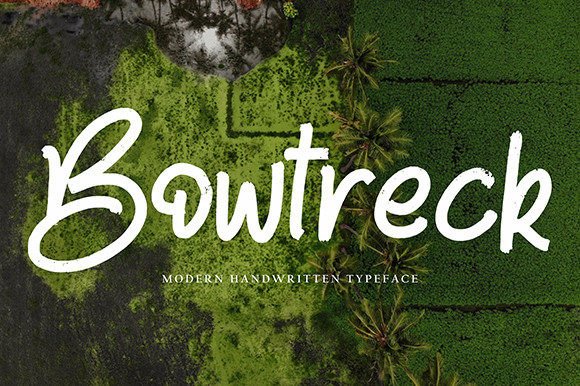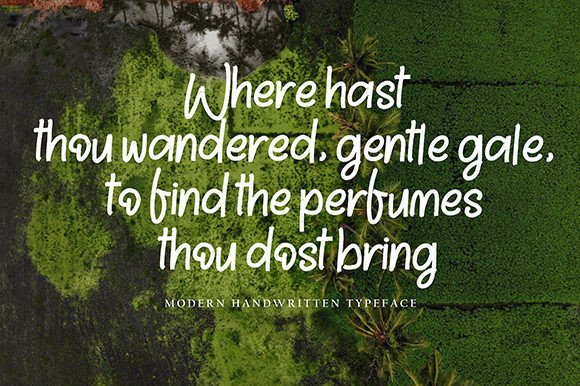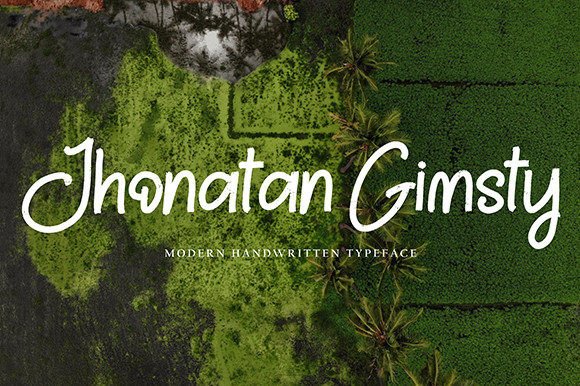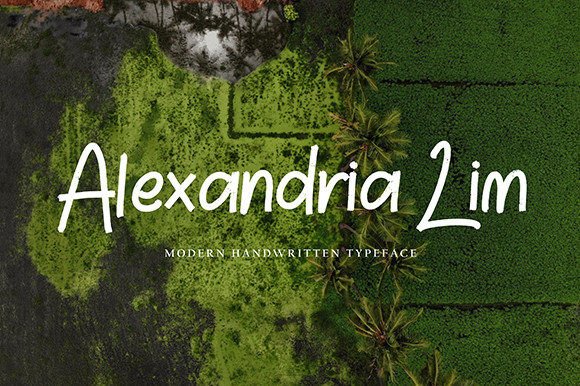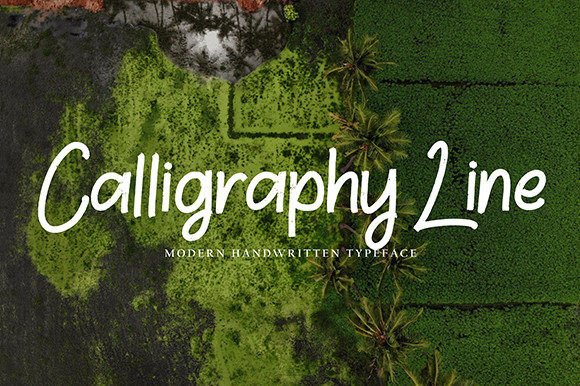
A Stylish and Elegant Handwritten Font
Bhowtreck is an elegant handwritten script font crafted to bring beauty and style to any project. With its graceful curves and refined strokes, this font has a timeless feel that elevates your designs instantly. Whether you are designing wedding invitations, branding, or social media content, Bhowtreck will make your work stand out.
Its clean, flowing style feels both sophisticated and personal, perfect for projects that need a handwritten touch.
Bhowtreck is a versatile font that works beautifully across many applications. It’s ideal for wedding invitations, RSVP cards, and thank you notes. The elegant script adds a romantic touch that makes every detail feel special.
For branding, Bhowtreck shines on logos, business cards, and product packaging. Its stylish character helps your brand feel premium and approachable at the same time.
This font is also great for quotes, greeting cards, and personal projects. Its handwritten look makes any message feel warm and authentic.
On social media, Bhowtreck helps your posts stand out while maintaining a clean, polished feel. Whether you’re sharing inspirational quotes or product updates, this font adds charm to every piece of content.
Despite its decorative style, Bhowtreck remains highly legible in any size. The smooth letter connections and balanced spacing ensure that your text is always easy to read. From big titles to small captions, Bhowtreck keeps your design clear and professional.
Pair Bhowtreck with a minimalist sans-serif font to create a modern, balanced look. Use it for headlines and accents, and keep the supporting text simple. This approach makes your design look organized and elegant.
To showcase Bhowtreck’s beauty, use soft backgrounds and neutral colors. Shades like ivory, blush, or soft gray allow the font’s details to stand out without distraction.
For wedding stationery, add delicate floral illustrations or subtle textures that complement the script’s graceful style. When designing logos or branding, keep layouts simple so the handwritten text becomes the main focal point.
On social media, embrace white space to highlight the font’s smooth strokes and create a refined feel.
Think about the mood you want to share. Bhowtreck is perfect for designs that need to feel sophisticated, romantic, and timeless.
Bhowtreck isn’t just a handwritten script—it’s a design tool that adds elegance and personality to any project. Whether you’re designing wedding materials, building a brand, or creating stylish social media graphics, this font adapts effortlessly to your needs.
Adding Bhowtreck to your font library ensures you always have a go-to option for projects big and small. Its refined style makes every design feel more special and unique.